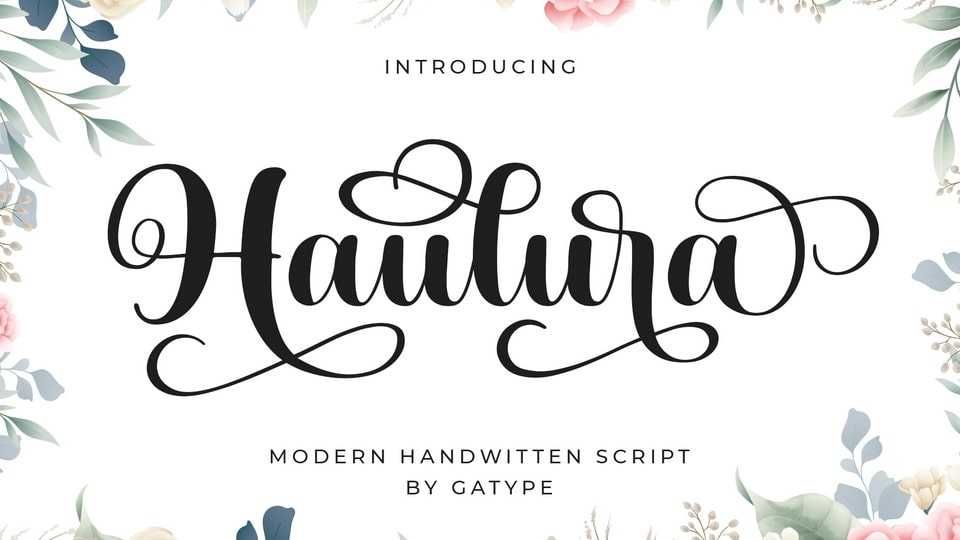
Download Haulura font, a modern calligraphy typeface, casual and pretty with a stroke. Can be used for various purposes, such as logos, product packaging, wedding invitations.